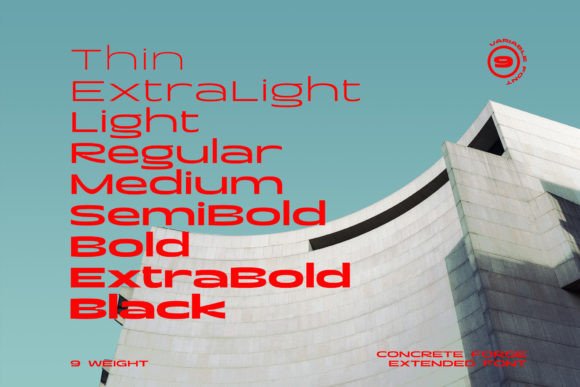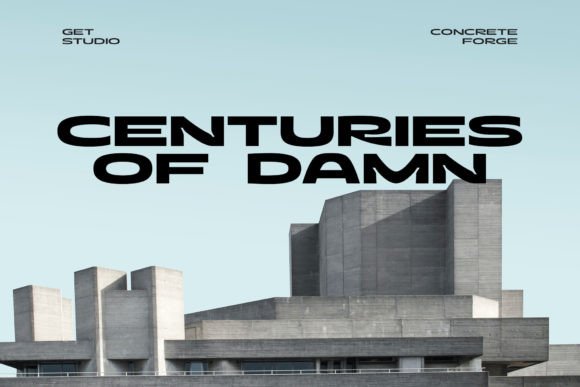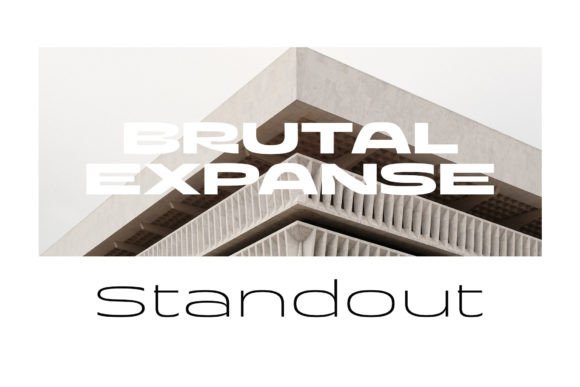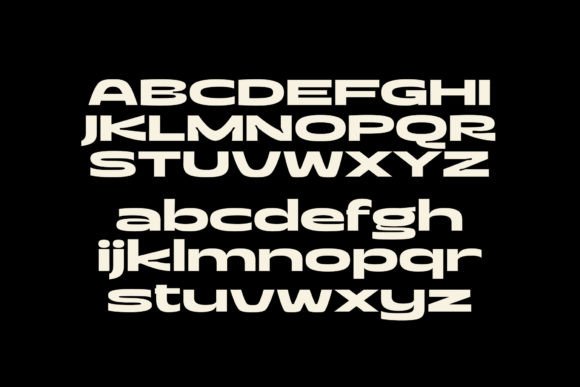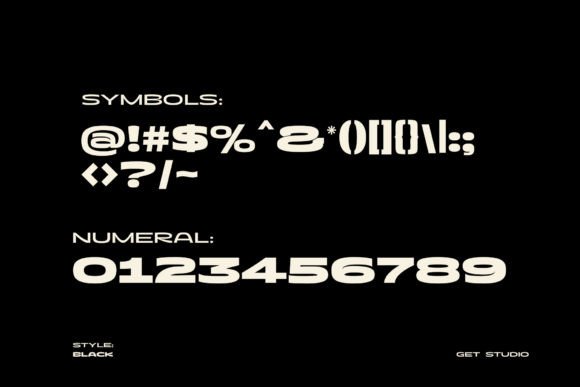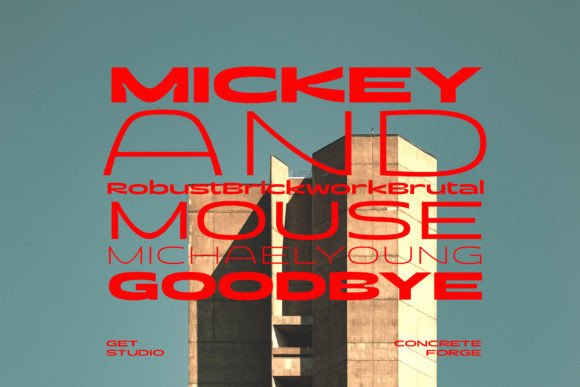
Introducing Concrete Forge: The Fearless Brutalist Font
In the world of typography, a new font has emerged that embodies the raw power and resilience of brutalist architecture. Say hello to Concrete Forge, a bold and captivating typeface that makes a statement. Inspired by the rugged aesthetics of concrete structures, this font exudes strength, confidence, and a sense of fearlessness.
The Brutalist Inspiration
Brutalist architecture, known for its raw concrete exteriors and imposing presence, has long been a source of inspiration for designers and artists. The style’s emphasis on functionality, simplicity, and honesty of materials has influenced various creative fields, including typography. Concrete Forge takes its cues from this brutalist movement, translating its core principles into a unique and impactful font.
Concrete Forge features robust and sharp angles, reminiscent of the solidity and resilience of concrete structures. Its characters are designed to convey a sense of strength and confidence, making it perfect for branding and design projects that require a bold statement. The font’s extended shapes add a touch of sophistication, balancing its rugged edges with a sense of elegance.
Embracing Simplicity
One of the key aspects of brutalist design is simplicity. Concrete Forge fully embodies this principle, with clean lines, minimal ornamentation, and a focus on functionality. This simplicity allows the font to be versatile and highly legible, making it suitable for a wide range of applications, from headings and titles to body text.
Impactful and Captivating
Concrete Forge is not just a font – it’s an experience. Its bold and rugged design makes it impossible to ignore, drawing the viewer’s attention and leaving a lasting impression. Whether used in branding, advertising, or editorial design, this font is sure to make a statement and set your project apart from the rest.
Concrete Forge is a dream come true for designers and crafters looking for a font that can help them create bold and impactful designs. Its unique blend of ruggedness and sophistication makes it an excellent choice for projects that require a strong visual identity. Whether you’re working on a logo, brochure, or website, this font is sure to elevate your design to the next level.
• Extended shapes: Adding a touch of sophistication to the font’s rugged design.
• Robust and sharp angles: Conveying strength and confidence.
• High legibility: Making it suitable for body text and headings.
• Versatile: Perfect for a wide range of applications, from branding to editorial design.
Concrete Forge is a game-changing font that embodies the raw power and resilience of brutalist architecture. Its unique blend of ruggedness and sophistication makes it an excellent choice for designers and crafters looking to create bold and impactful designs. With its extended shapes, robust angles, and high legibility, this font is sure to make a statement and elevate your design to the next level.